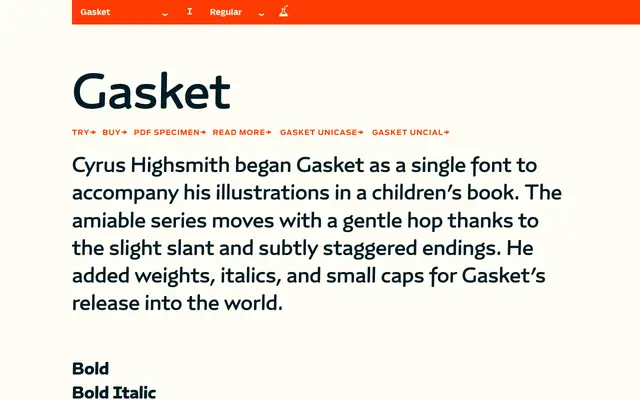
Gasket
Occupant Fonts · Cyrus Highsmith · 2016
A humanist sans by Cyrus Highsmith, originally drawn as a companion to his own children's book illustrations, now expanded into a six-weight family with italics and small caps.
Designed by Cyrus Highsmith and released in 2016, Gasket began as a single font made to sit alongside the designer's own illustrations in a children's book. Its mild slant and subtly staggered stroke endings give the letterforms an easy, animated rhythm without tipping into novelty. The family spans six weights from Thin to Bold, each with a matching italic, and includes small caps alongside Unicase and Uncial variants.
Gasket displays humanist sans-serif characteristics with a gentle, slightly slanted rhythm and subtly staggered stroke endings that give it an informal, hand-influenced quality distinct from geometric or grotesque models.